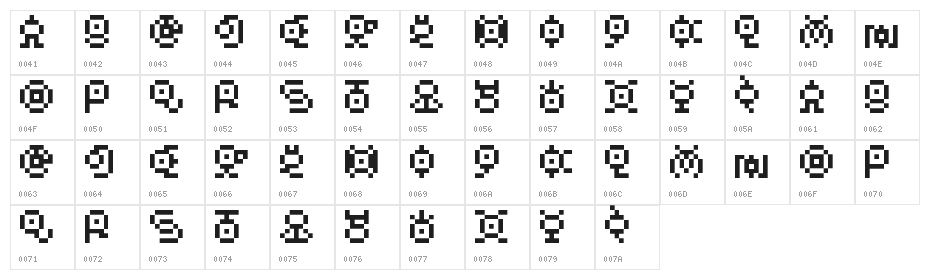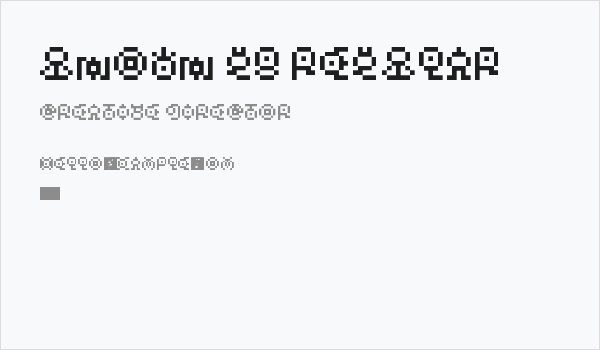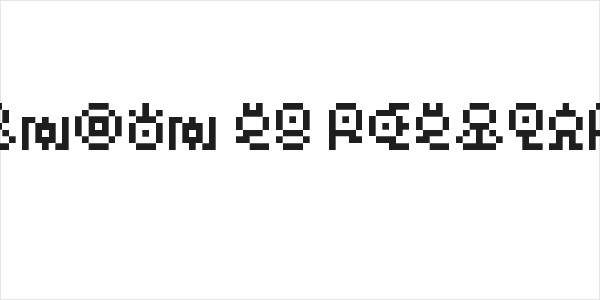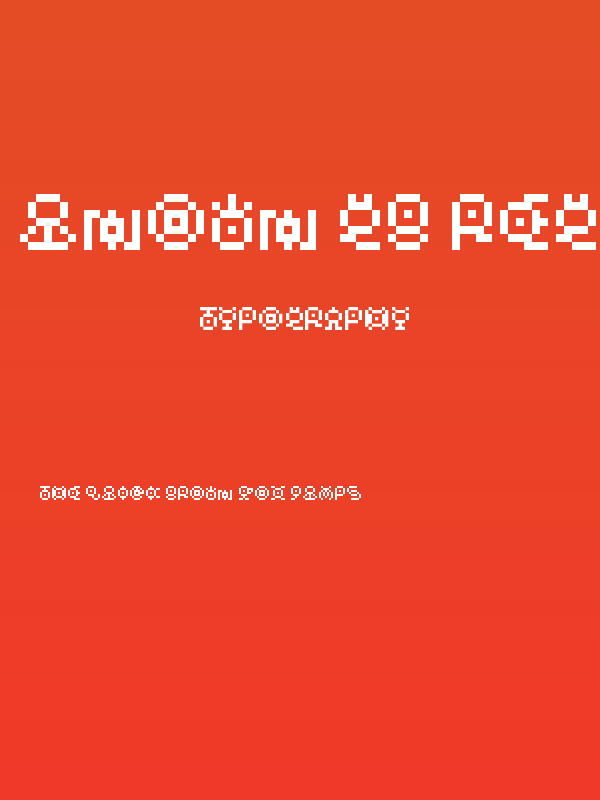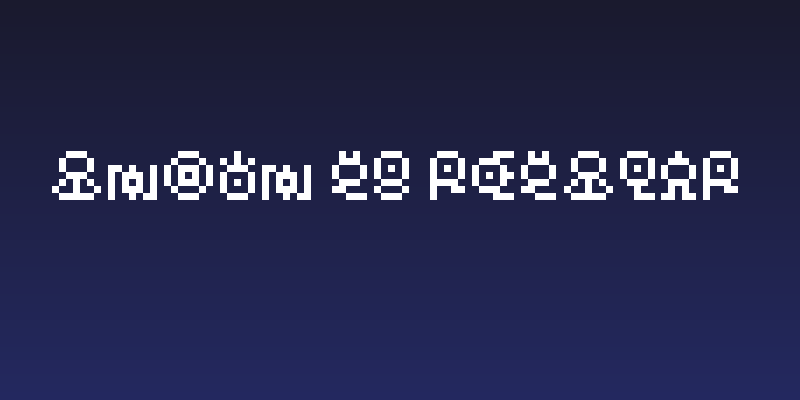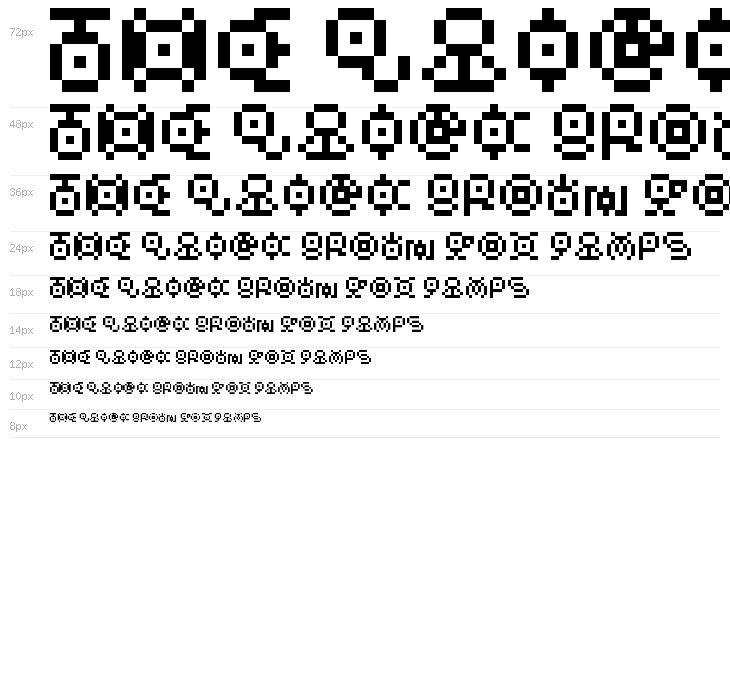
Unown GB Regular Font
Unown GB Regular Description
This font is a unique and decorative typeface inspired by ancient symbols, featuring characters that resemble mysterious glyphs. Each letter is crafted with a pixelated, geometric style, giving it a distinct and enigmatic appearance. The characters are uniform in width, contributing to a monospaced feel, while the overall design evokes a sense of mystery and intrigue. The font's style is reminiscent of ancient scripts or coded messages, making it ideal for projects that require a touch of the unusual or the arcane.
| Use Case | Logos, Titles, Themed Events |
| Proposed Projects | Ideal for video game design, fantasy-themed projects, escape room branding, or any creative work requiring a mysterious or ancient aesthetic. |